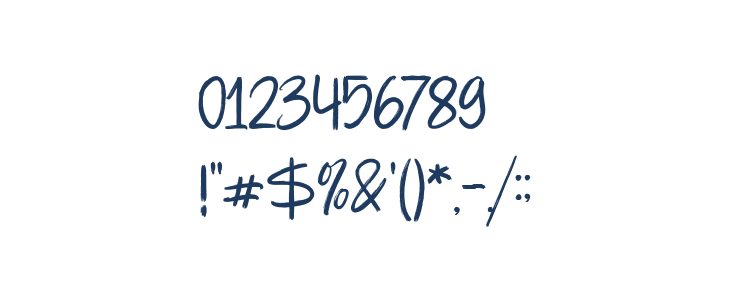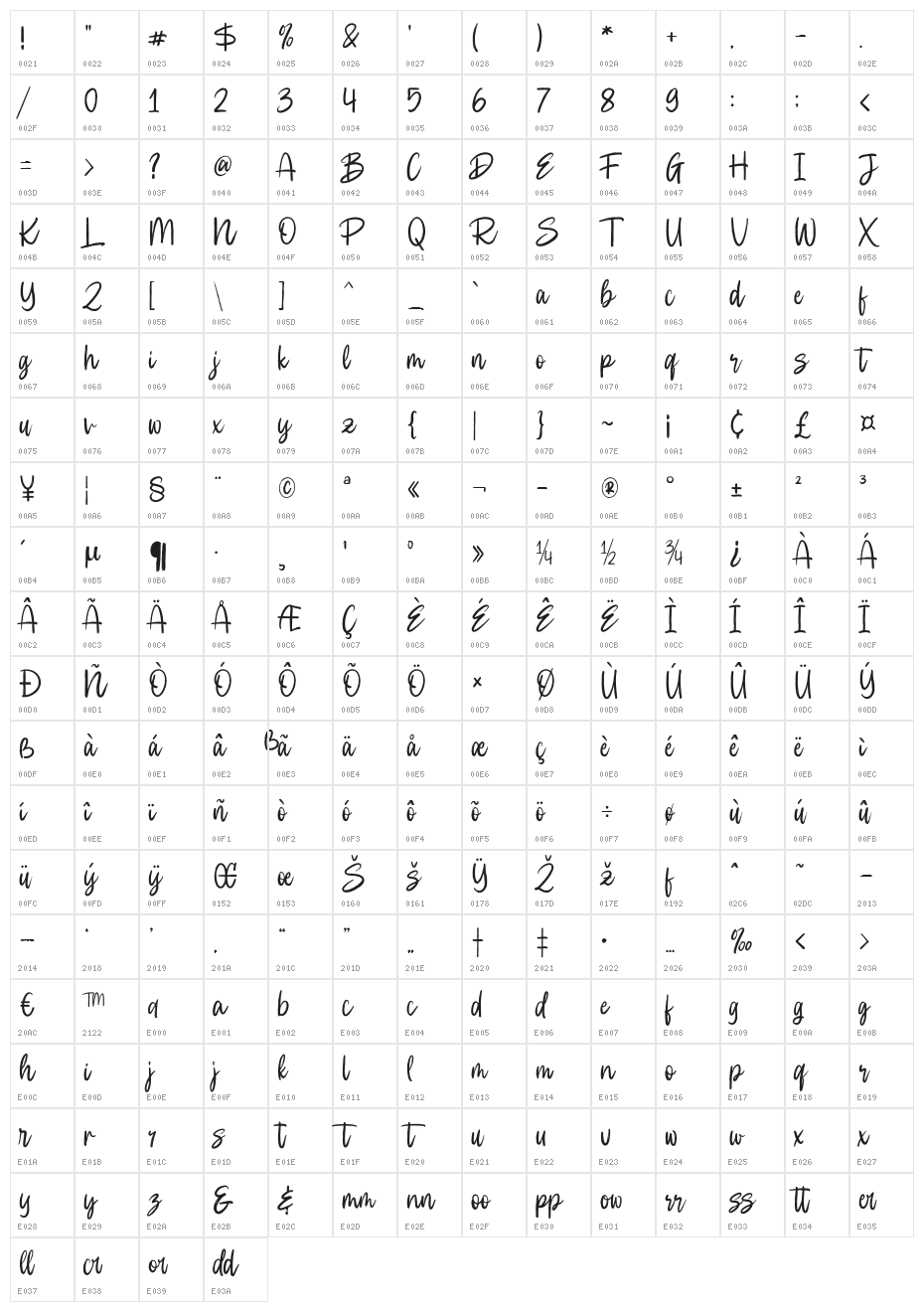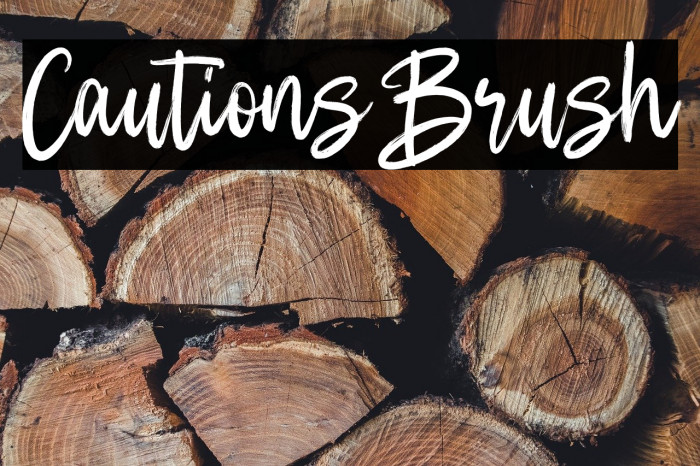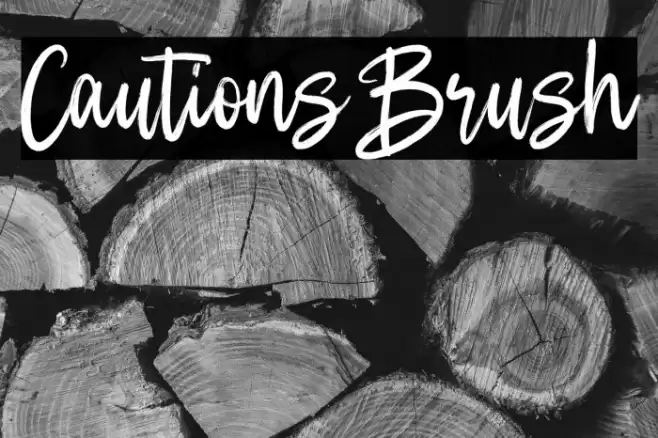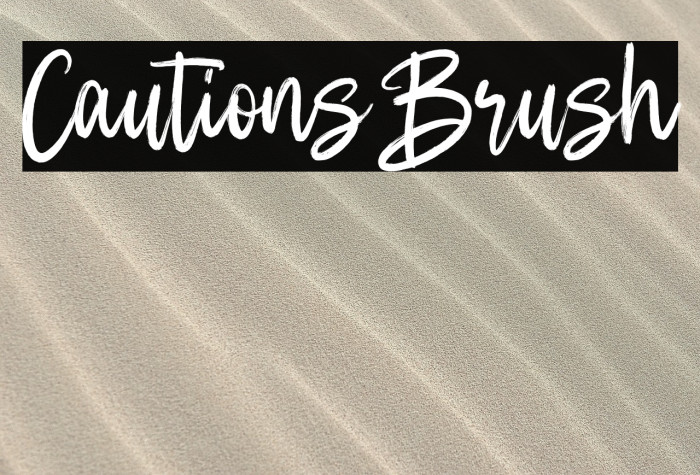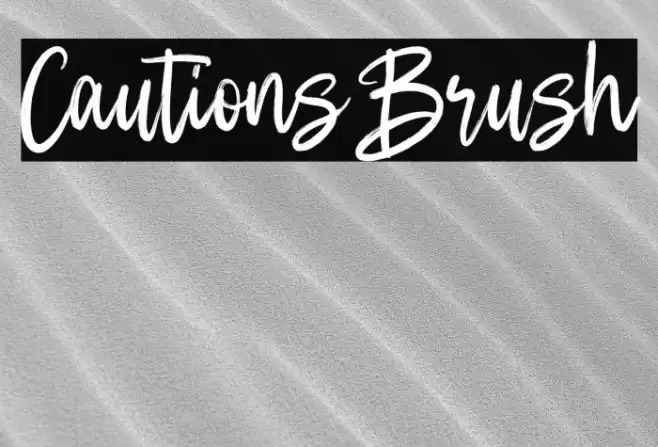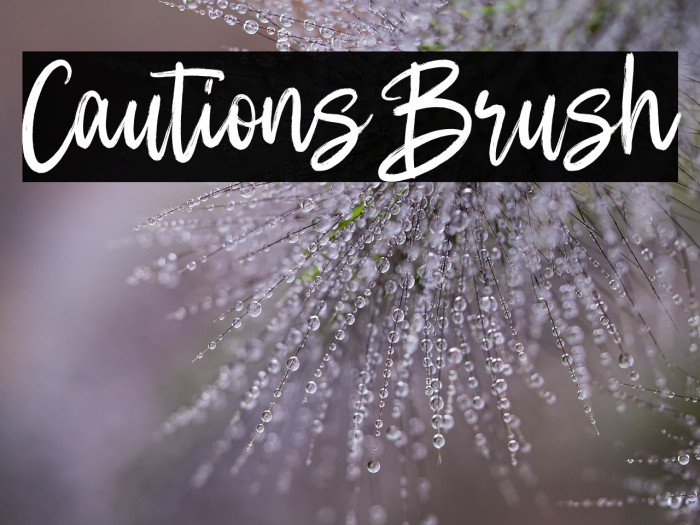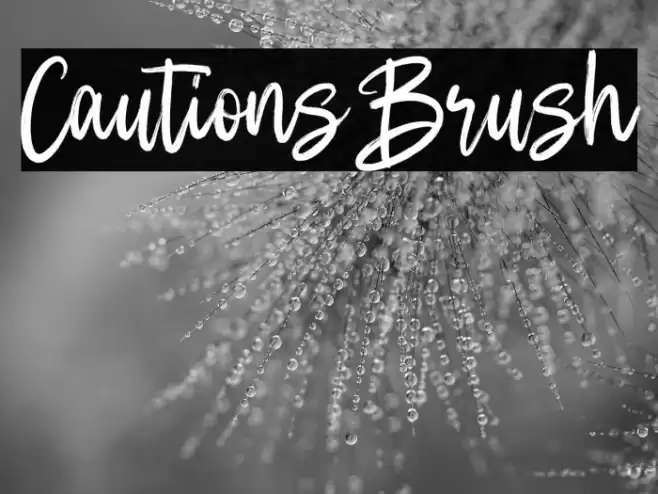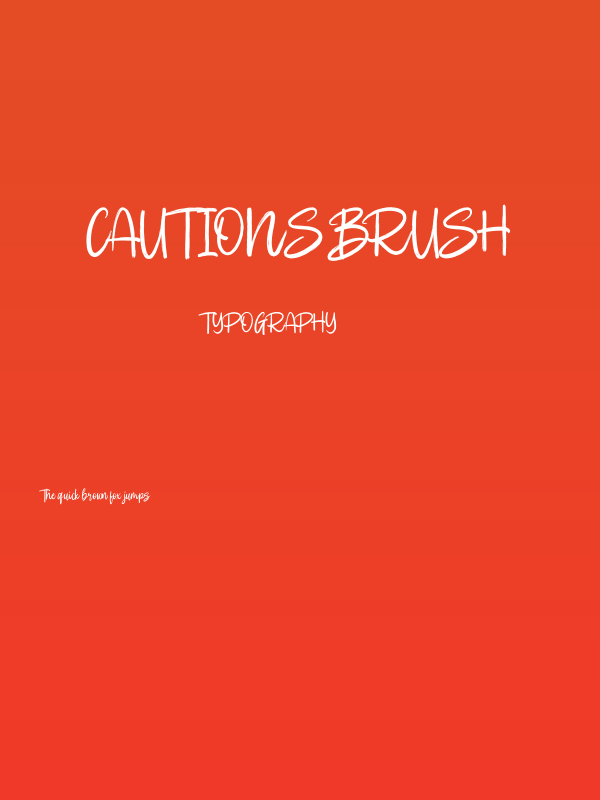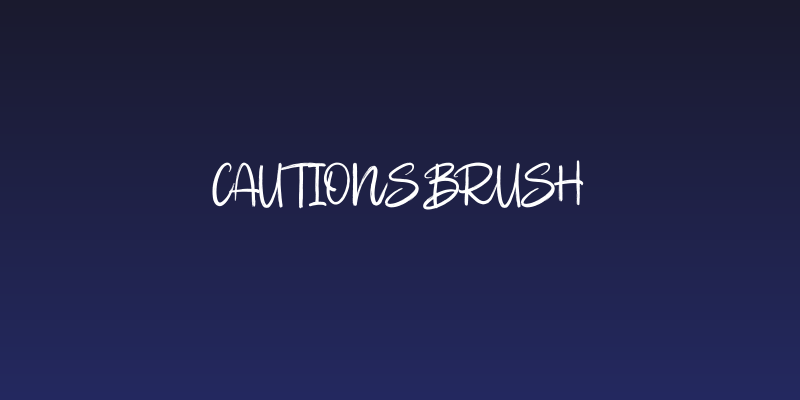
Cautions Brush Font
Cautions Brush Description
This font exudes a lively and energetic vibe, characterized by its brush-like strokes that give it a handwritten appearance. The uppercase and lowercase letters flow seamlessly, maintaining a consistent rhythm throughout. The numerals and special characters are crafted with the same dynamic flair, ensuring uniformity across all elements. The strokes vary in thickness, adding a sense of movement and spontaneity. This font is perfect for projects that require a personal touch, such as invitations, greeting cards, or branding materials that aim to convey creativity and approachability.